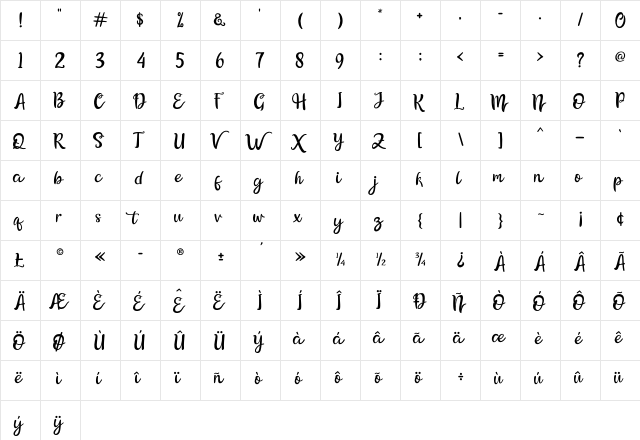
The Billow Regular
| Foundry | Wandani Creative |
| Designer | Rizaldi Wandani |
Design Context for The Billow Typeface
The Billow is a composed and adaptable typeface that performs quietly and consistently across a wide range of design contexts.